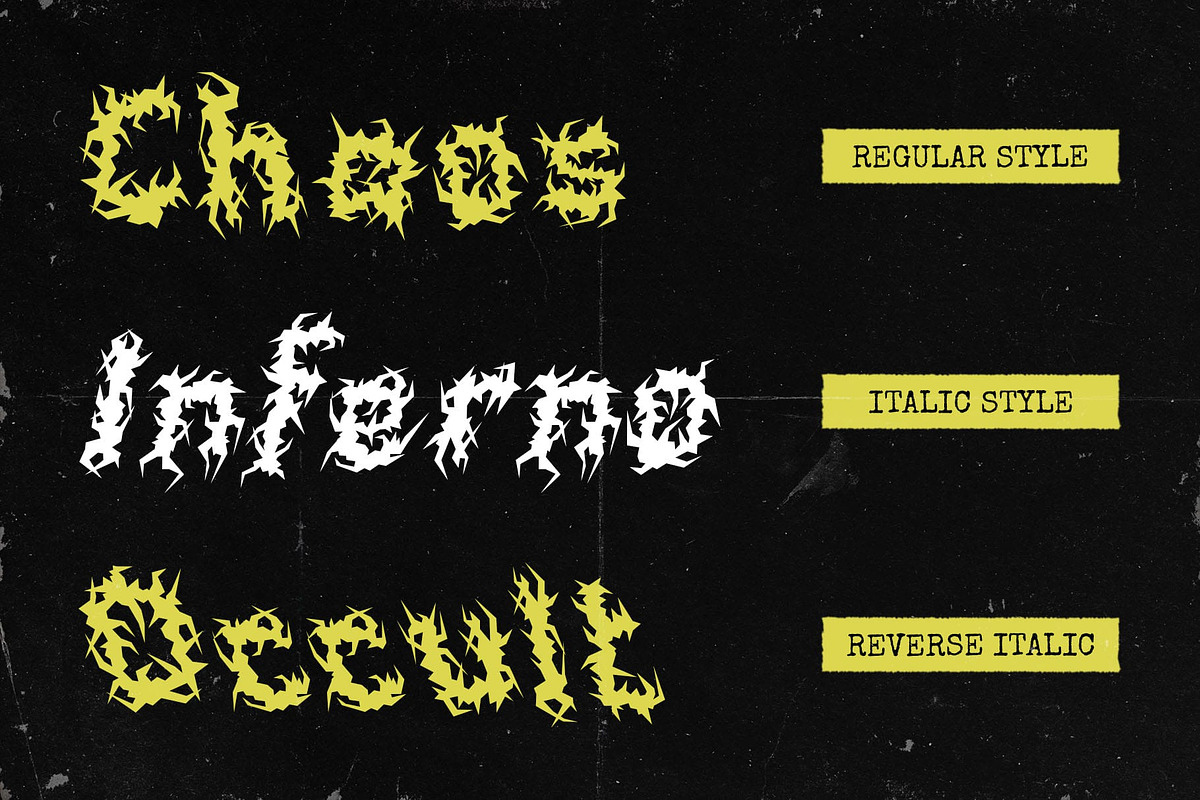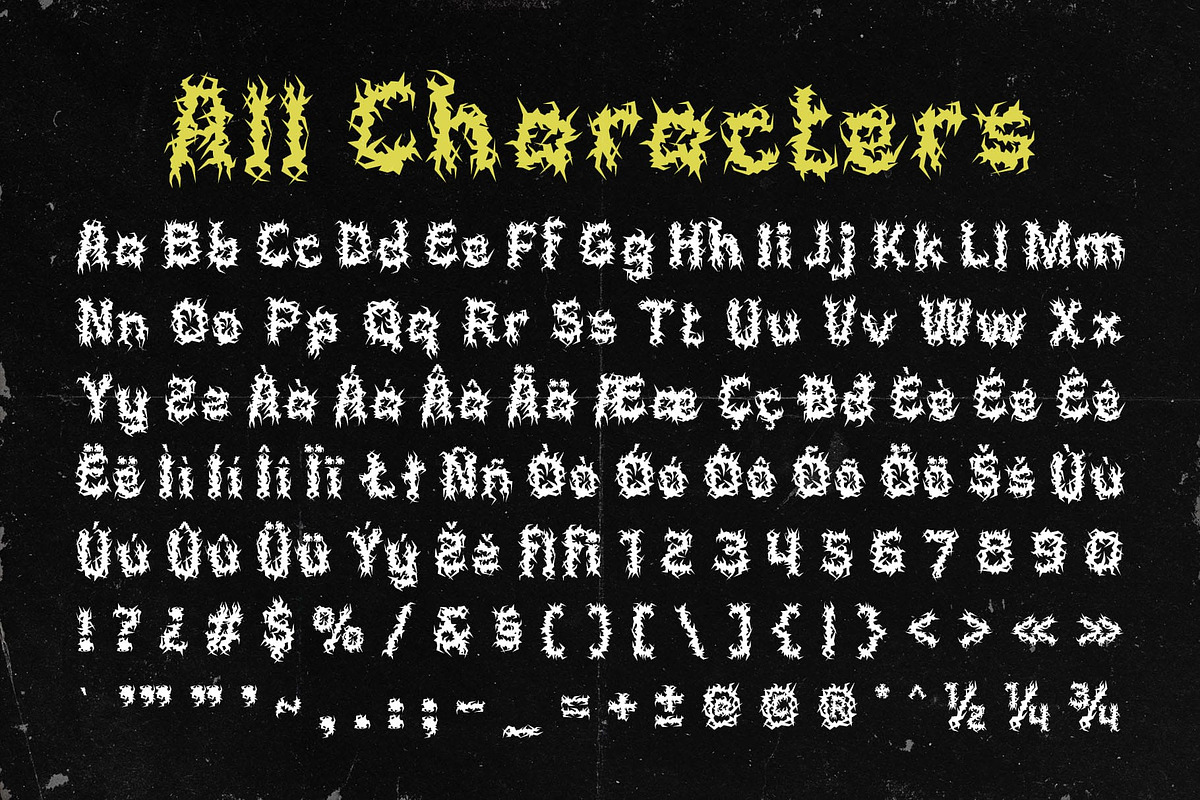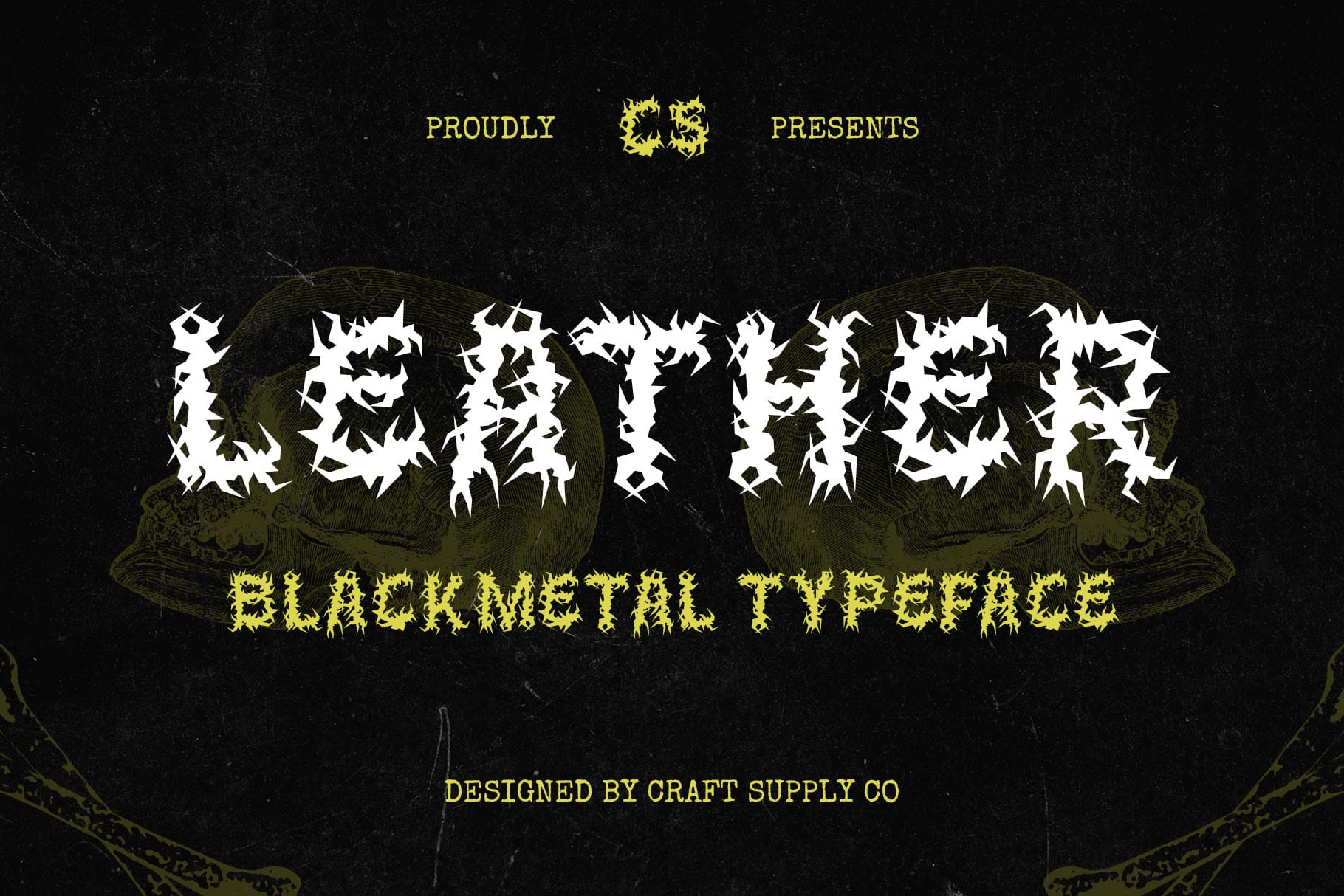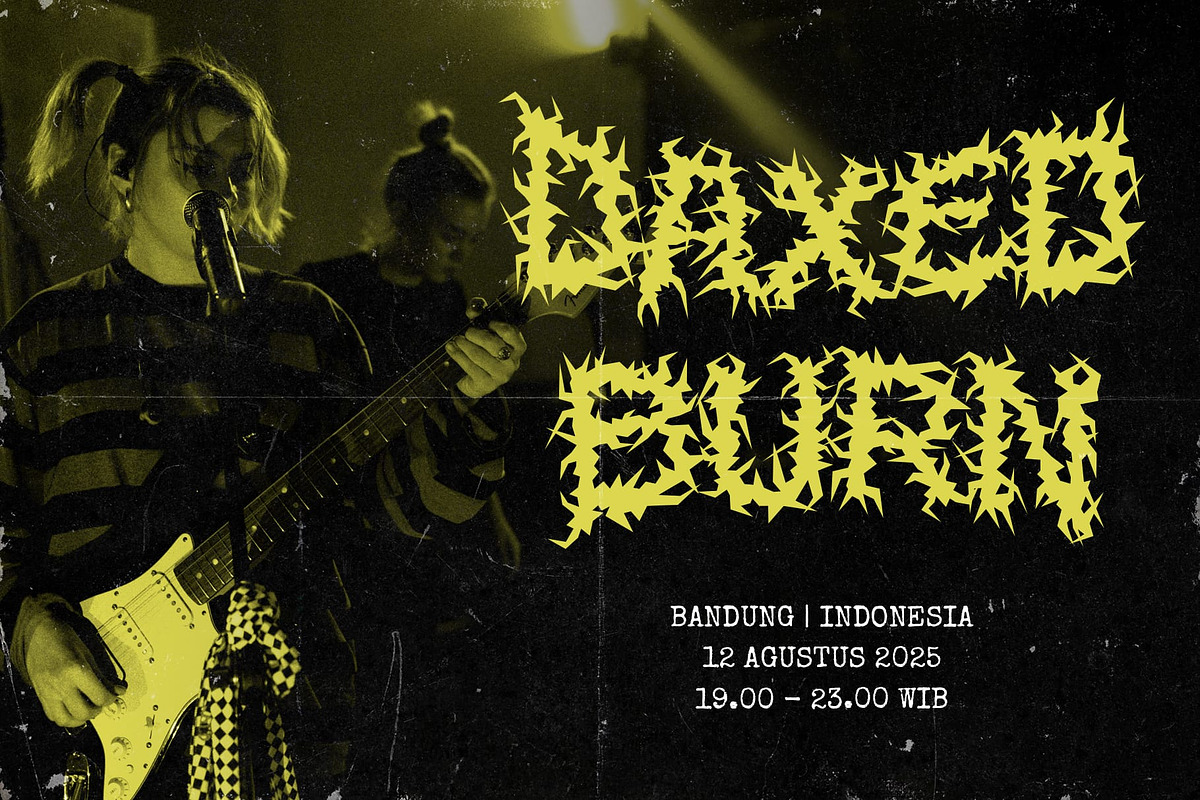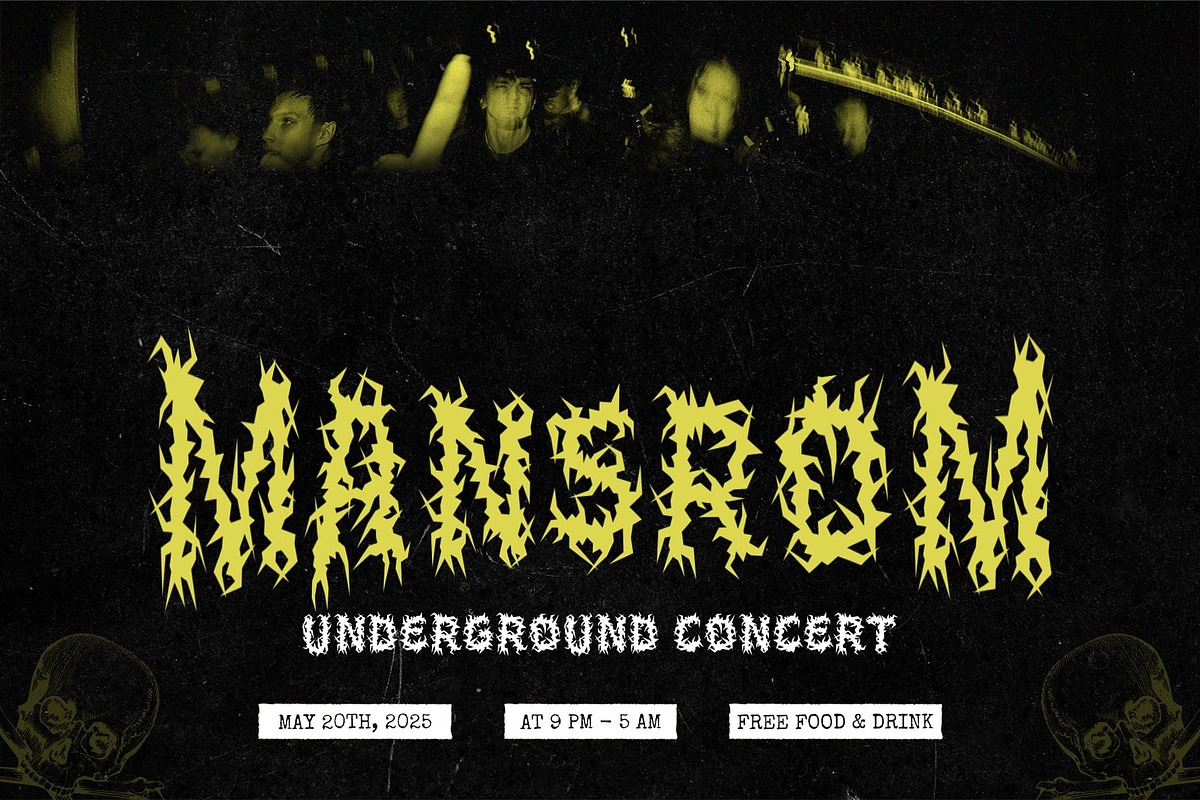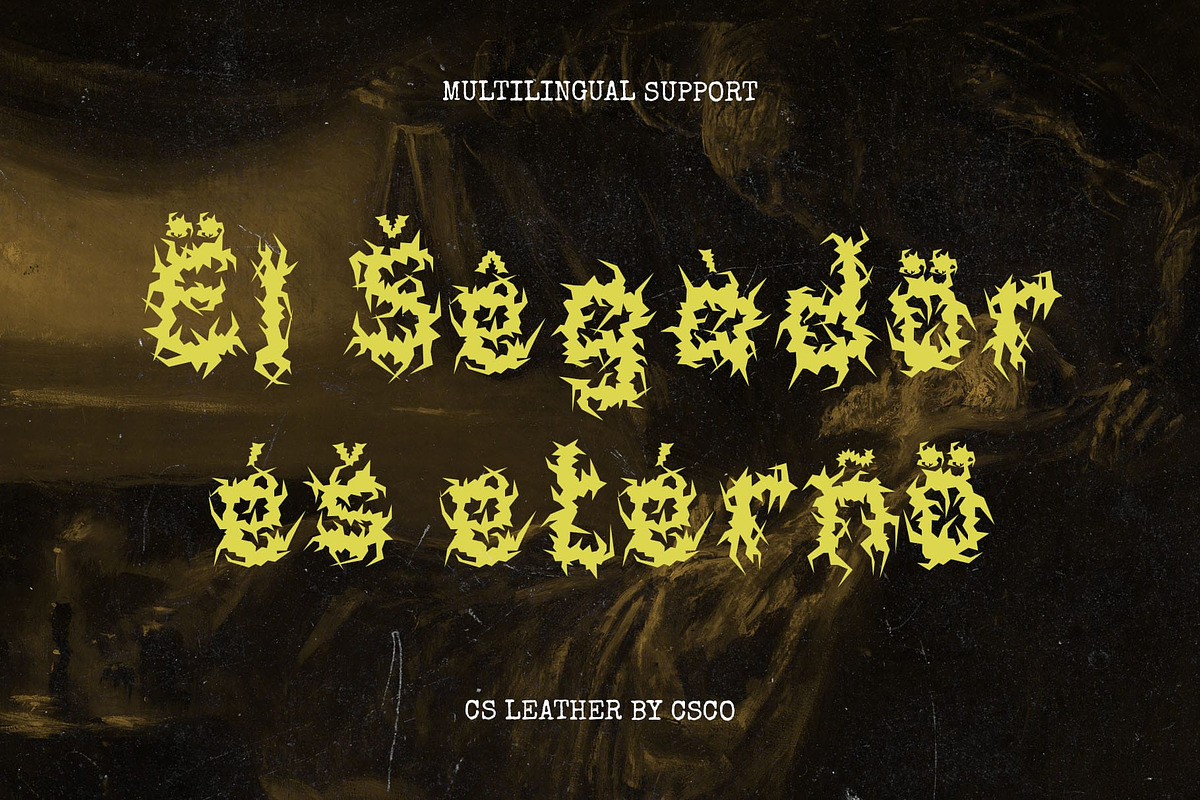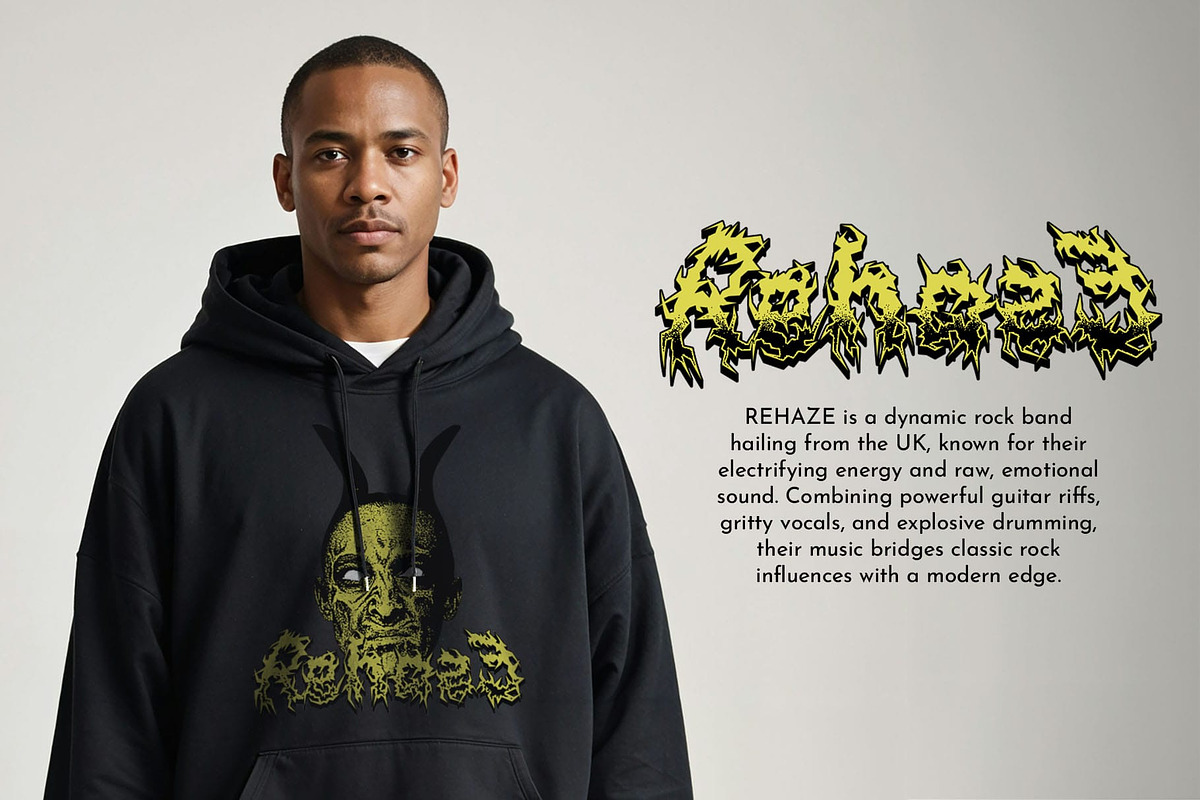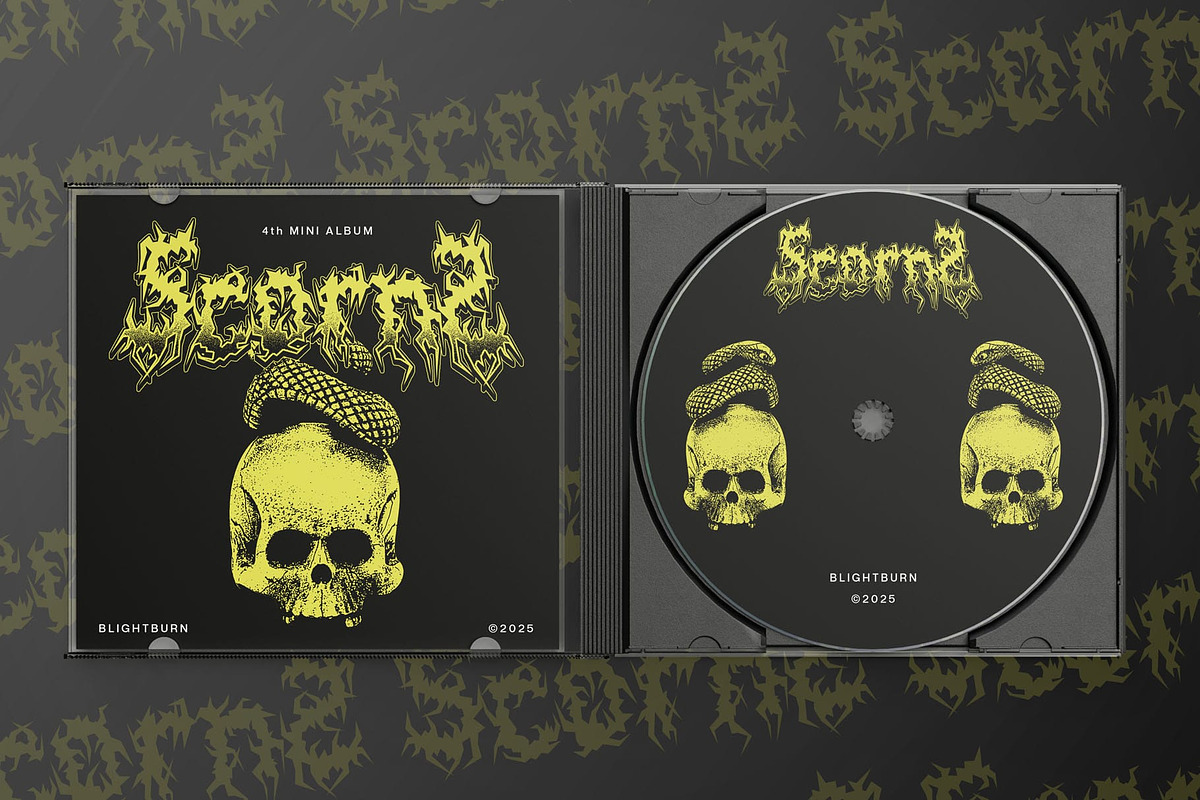
CS Leather – Black Metal Font
CS Leather – Black Metal Font: Embrace the Dark Rebellion
Black Metal Display Font CS Leather is a black metal display font that draws inspiration from the raw, rebellious energy of the black metal music genre. With jagged, distorted letterforms, this font exudes a sense of aggression, darkness, and power. Its bold, gothic-style elements create an intricate and intense aesthetic, making it perfect for designs that aim to evoke strong emotions and a rebellious spirit.
Intricate and Distorted Design The font’s sharp edges and fragmented letterforms create a raw, chaotic appearance that captures the essence of black metal. Intricate details throughout the design emphasize its gothic influence, while the distorted shapes add to its powerful visual impact. CS Leather’s aggressive aesthetic is a standout choice for projects that require a bold and intense look, delivering a strong message with every letter.
Ideal for Extreme Music and Underground Culture CS Leather is perfectly suited for designs related to black metal music, extreme subcultures, and alternative art. It is a fitting choice for album covers, concert posters, and merchandise, creating a visual identity that aligns with the bold and rebellious nature of the black metal genre. Whether used for branding within the underground music scene or creating an intense atmosphere for an event, this font delivers a striking and memorable look.